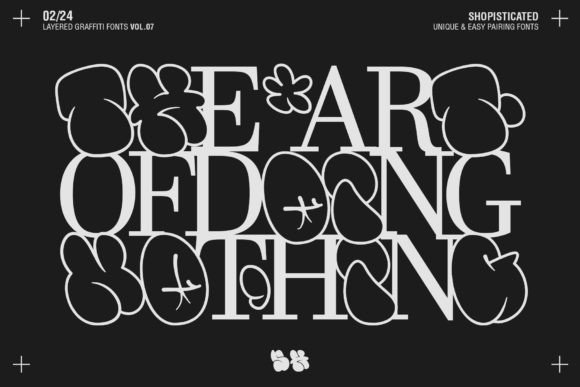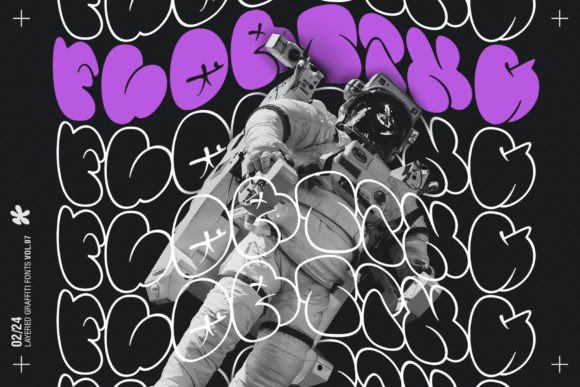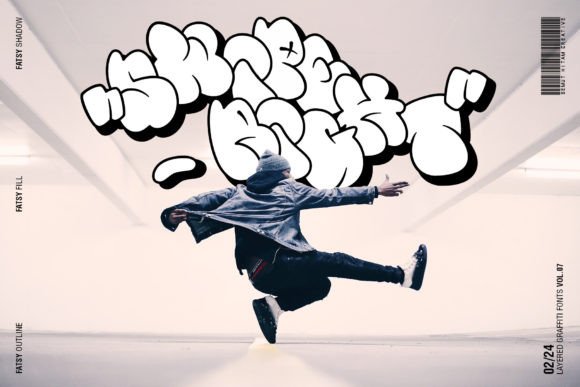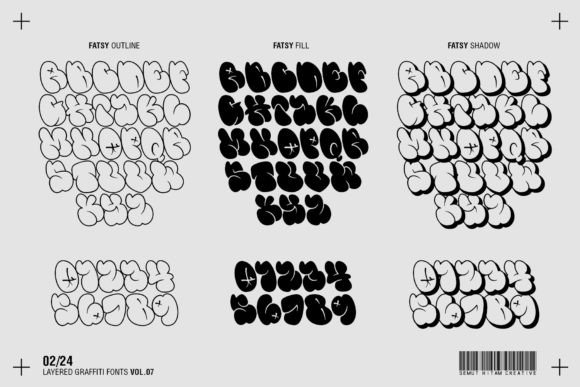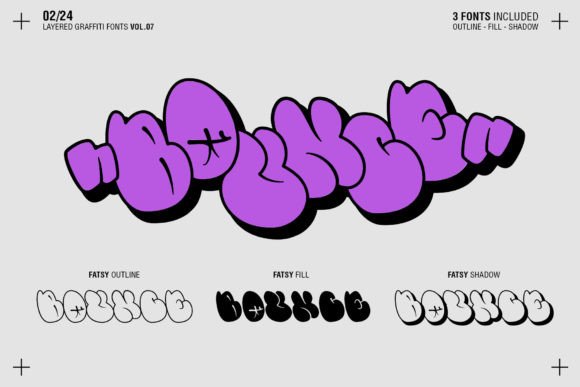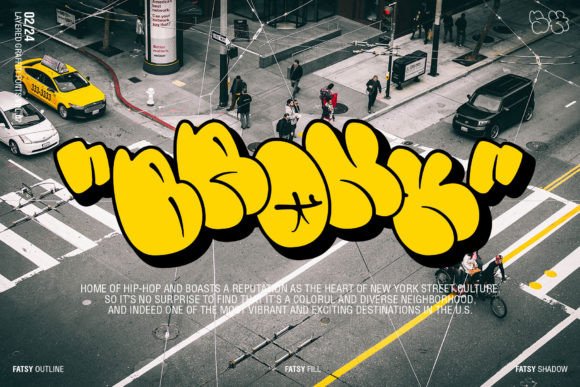
Unleash Your Creativity with Fatsy Font: The Bold and Audacious Graffiti-Style Font
Are you tired of using the same old fonts in your designs? Look no further than Fatsy Font, a graffiti-style font that embodies the bold and audacious personality of street art. With its distinct layered charm and thick outlines, Fatsy is the perfect addition to any design project. In this article, we’ll explore the unique features of Fatsy Font and how it can elevate your designs to the next level.
Inspiration from Graffiti Art
Fatsy Font draws inspiration from the puffiness of bubble letters, often seen in true graffiti art. This style of lettering is characterized by its rounded and inflated appearance, giving it a playful and eye-catching vibe. Fatsy Font captures the essence of this style, bringing the raw energy of street art to your digital canvas.
Distinct Layered Charm
One of the standout features of Fatsy Font is its thick outlines, which lend a full-bodied, fat aesthetic to your designs. This characteristic gives your text a prominent and assertive appearance, making it perfect for headings, titles, and emphasis. The layered charm of Fatsy Font also allows for versatility in design, giving you the freedom to experiment with different combinations of letters and styles.
Versatility in Layering
Fatsy Font’s layered design saves you from the complex tasks of editing your artwork, allowing you more freedom to express your creativity. With Fatsy, you can easily create unique and intricate designs by layering different letters and styles. This feature is especially useful for designers and crafters who want to add an extra dimension to their work.
Perfect Accomplice to Any Font
Fatsy Font is designed to be versatile and adaptable, making it the perfect accomplice to all kinds of fonts. Whether you’re working with serif, sans-serif, or script fonts, Fatsy can add a fresh, eclectic, and advanced appeal to your designs. Its bold and audacious personality can help elevate your text and make it stand out from the crowd.
Comprehensive Set of Characters
Fatsy Font boasts a comprehensive set of characters, including funky uppercase and lowercase letters, numbers, punctuation, and support for multiple languages. This diverse and dynamic font is ready to elevate your designs, whether you’re working on a logo, poster, or social media graphic.
Key Features of Fatsy Font
- Graffiti-style font with a distinct layered charm
- Thick outlines for a full-bodied, fat aesthetic
- Versatility in layering for unique and intricate designs
- Perfect accompaniment to all kinds of fonts
- Comprehensive set of funky uppercase and lowercase letters, numbers, punctuation, and support for multiple languages
In conclusion, Fatsy Font is a bold and audacious graffiti-style font that’s perfect for designers and crafters looking to add a fresh and eclectic touch to their work. With its distinct layered charm, thick outlines, and versatility in layering, Fatsy Font is the perfect addition to any design project. Its comprehensive set of characters and adaptability make it a diverse and dynamic font that’s ready to elevate your designs to the next level.